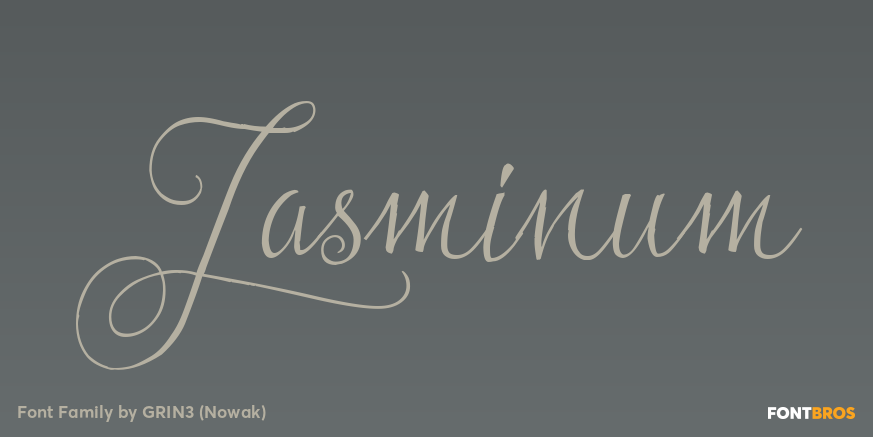
Jasminum
About Jasminum
Jasminum is a handwritten, fully connected script with ligatures to help with flow and readability. It can be used for invitations, greeting cards, posters, advertising, weddings, books, menus etc. Jasminum contains over 700 glyphs. Each letter has three…